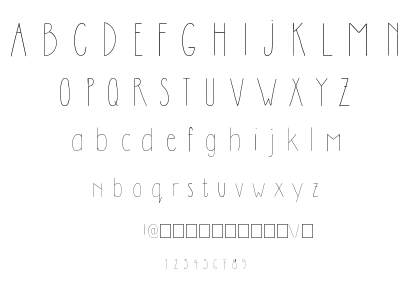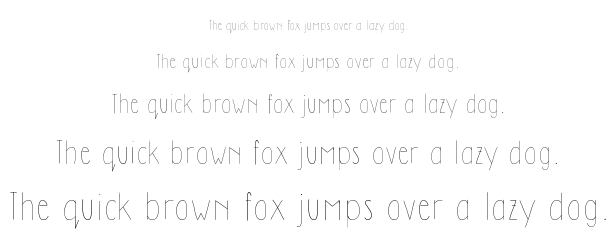
Dilem Handwritten was initially intended to be an uppercase typeface. It is derived of my handwriting, which actually has nothing to do with the lowercase letters of this particular typeface 🙂 However, I wanted to complete the family and make something different. My first typeface experience, I hope you enjoy it!